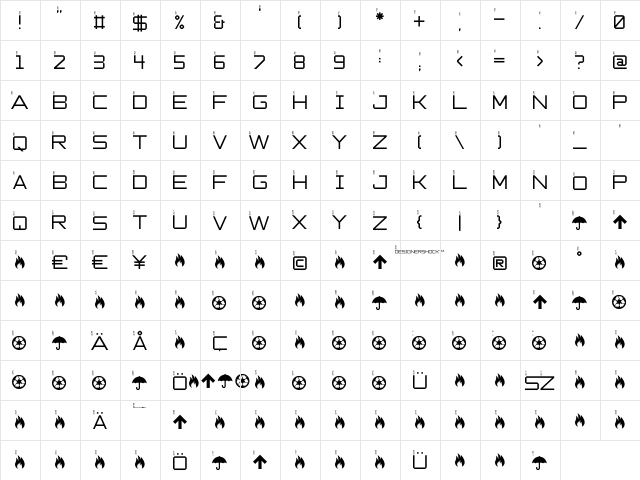
DS GS49 Regular
Design Context for DS GS49 Typeface
DS GS49 is a composed and adaptable typeface that performs quietly and consistently across a wide range of design contexts.